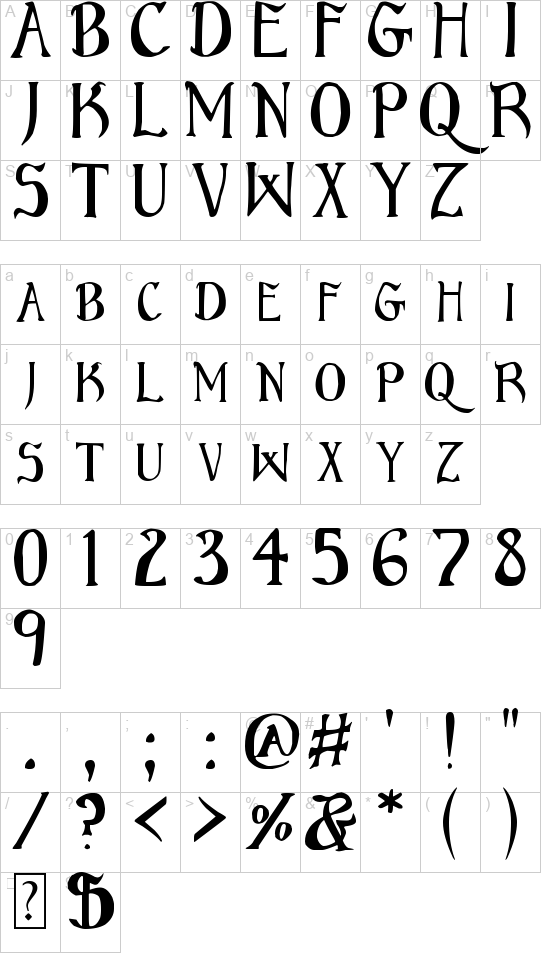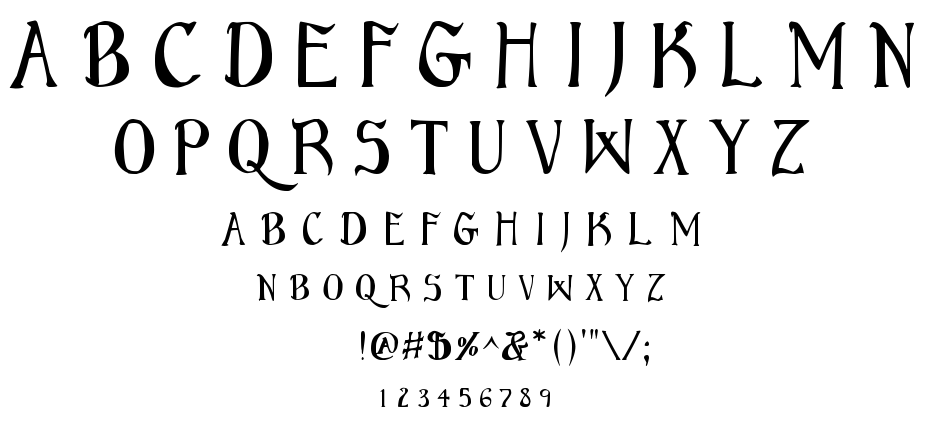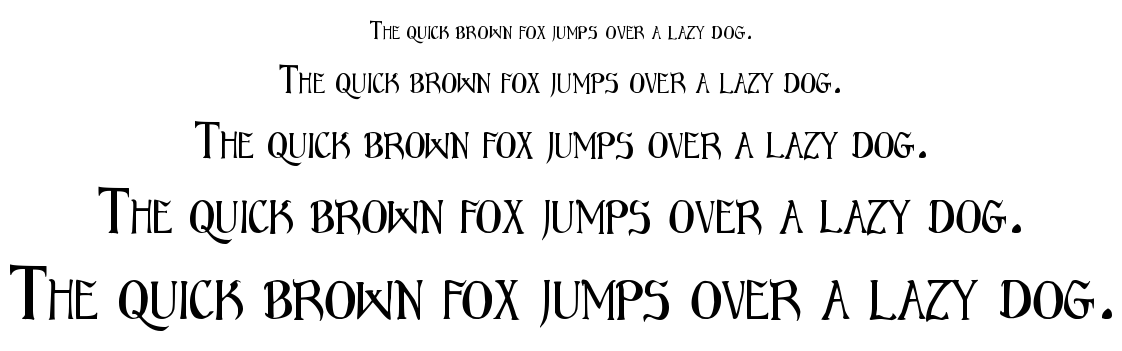
Part of the Bruce family of fonts – this is a modern gothic font with a medieval / fantasy / rennaisance flavor. Excellent for titling, tag lines, and desktop publishing applications.